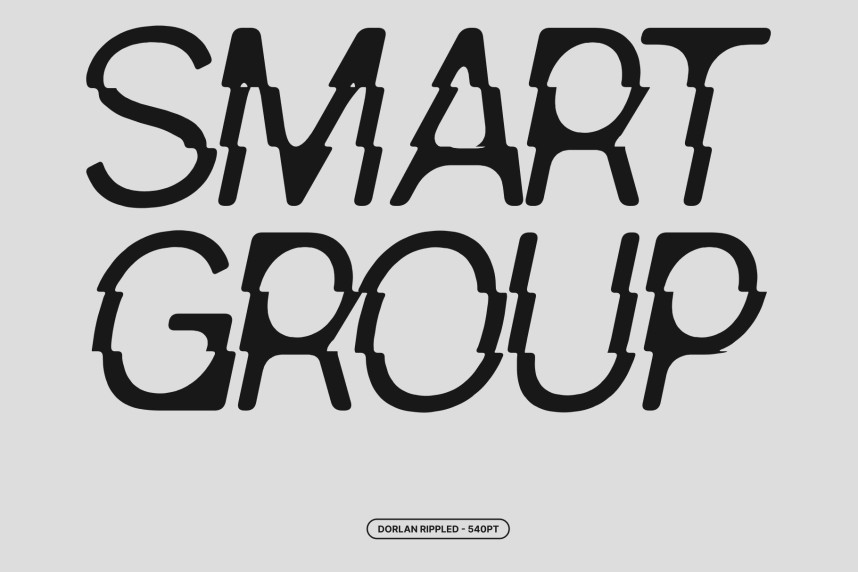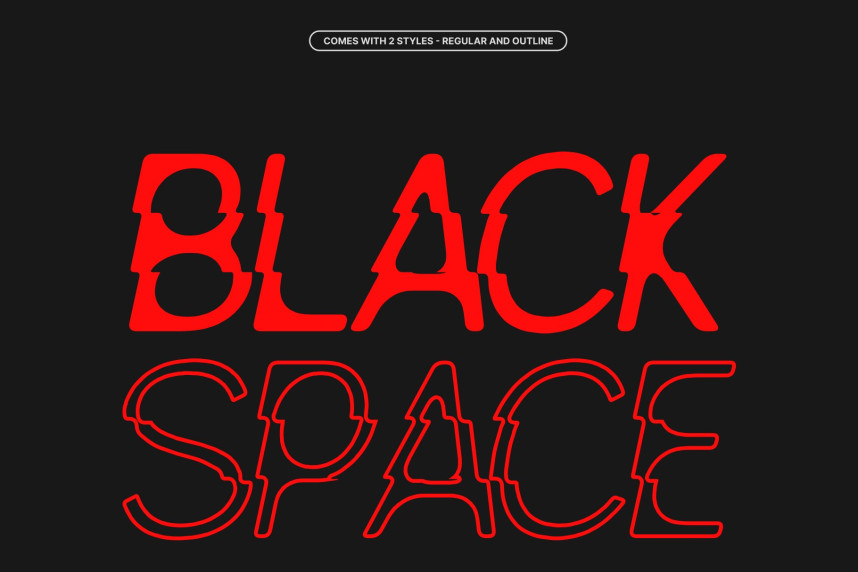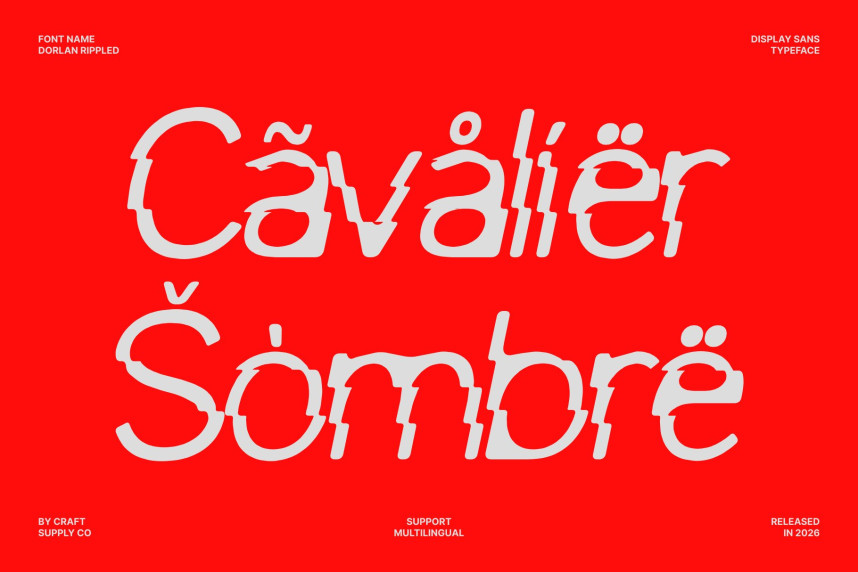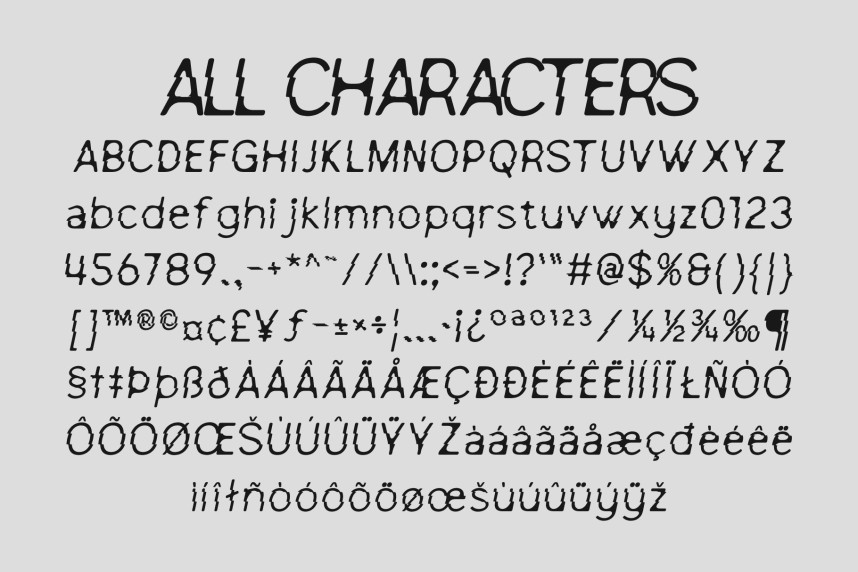
Dorlan Rippled Font – Contemporary Sans Serif Font: Where Modern Clarity Meets Fluid Wave Motion
Sleek Letterforms with Refined Simplicity
This is a contemporary sans serif font that combines clean, modern letterforms with balanced proportions to create a polished and versatile visual style. Its minimalist construction offers exceptional clarity and readability, making it an excellent choice for contemporary branding and display typography that values both elegance and functionality.